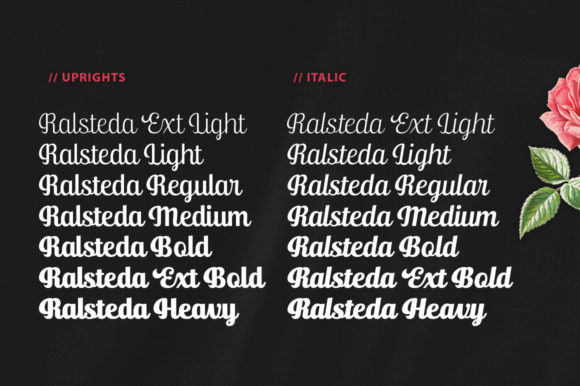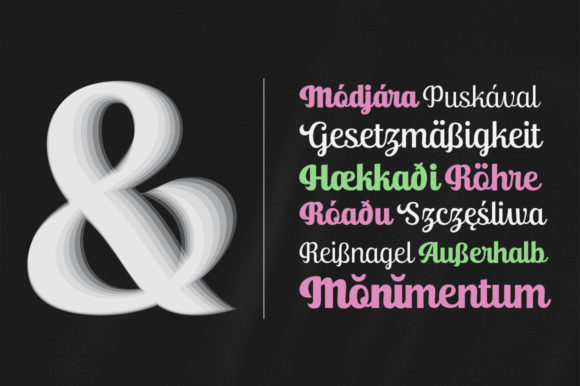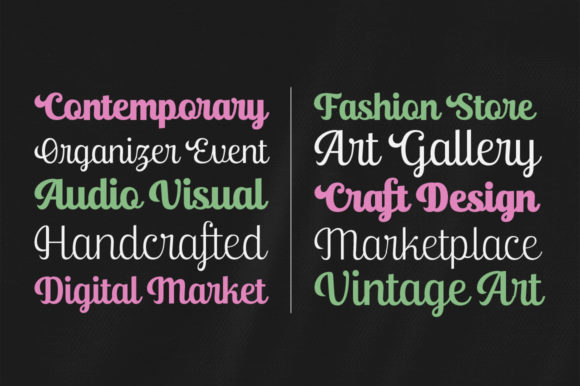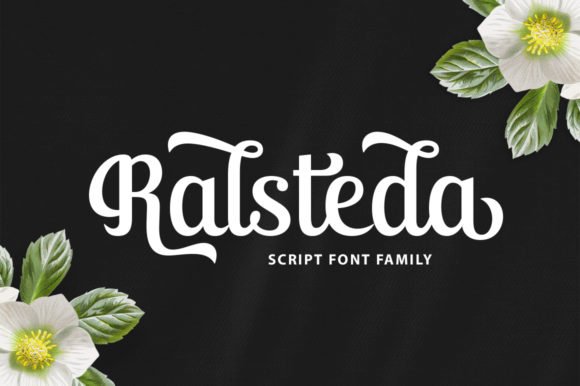
Introduction to Ralsteda Font
Ralsteda is a unique handwritten font.
Use it to make your ideas even more realistic and create spectacular designs .
Key Features of Ralsteda Font
Why Choose Ralsteda Font?
Ralsteda Font offers exceptional quality and versatility, making it a valuable addition to your design toolkit. Whether you’re creating for personal projects or commercial use, Ralsteda Font delivers professional results.